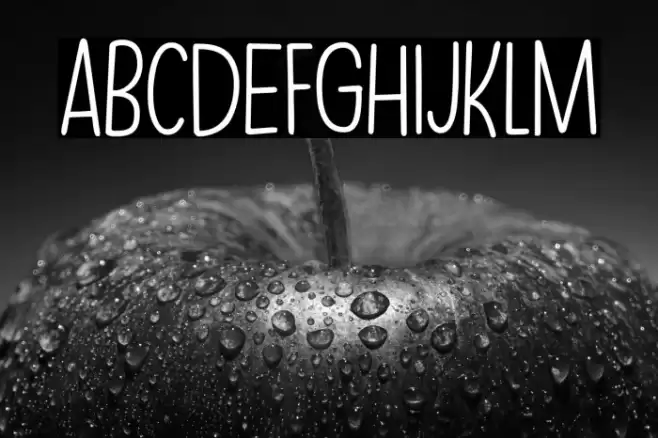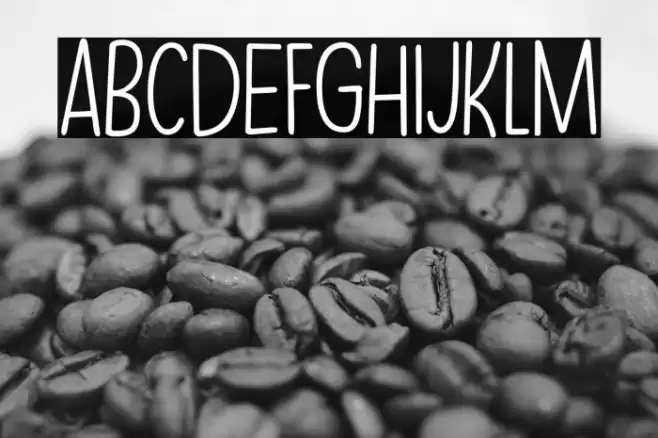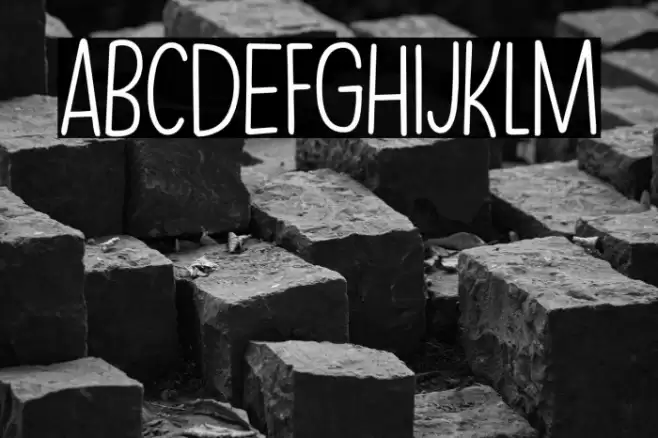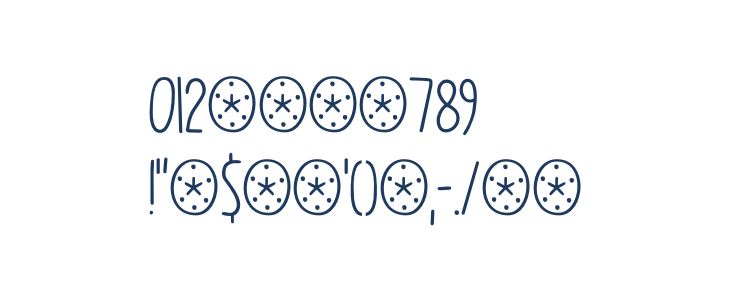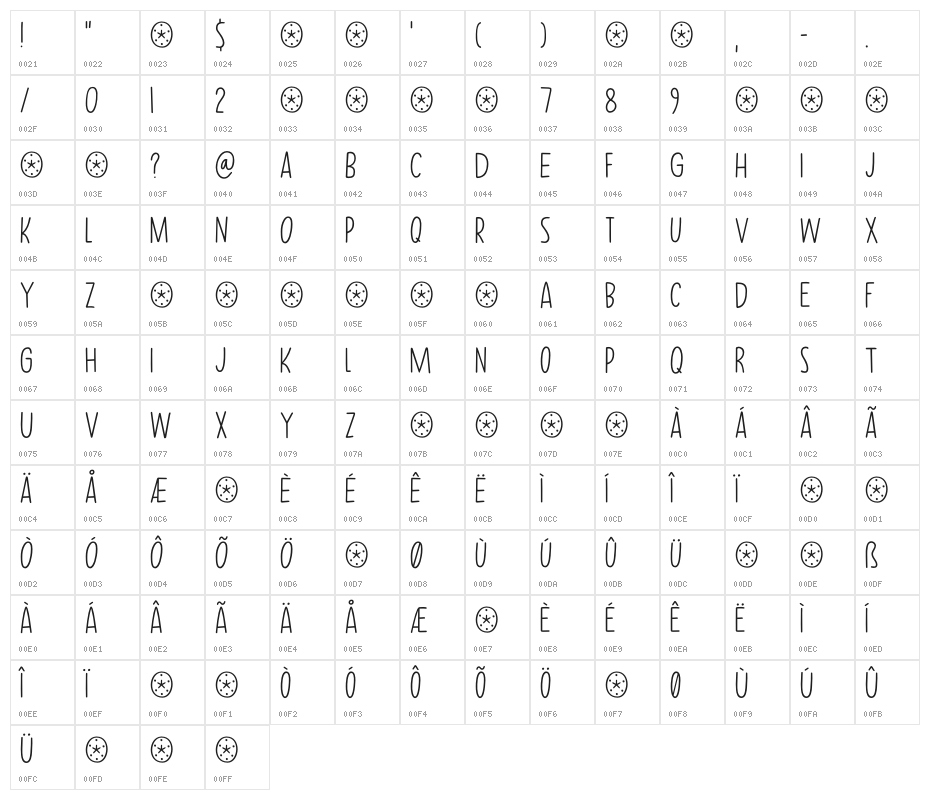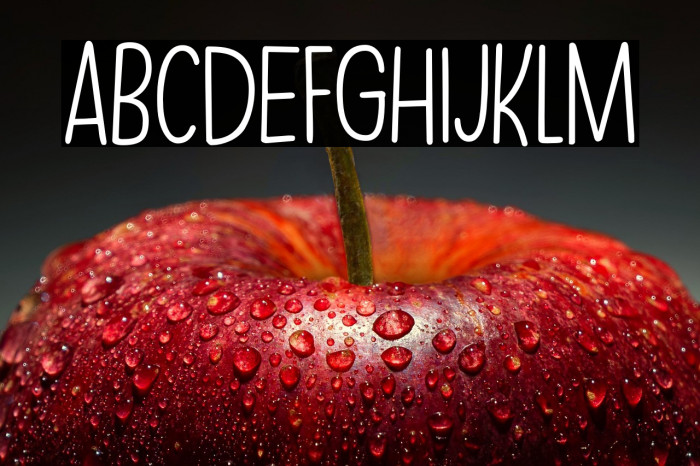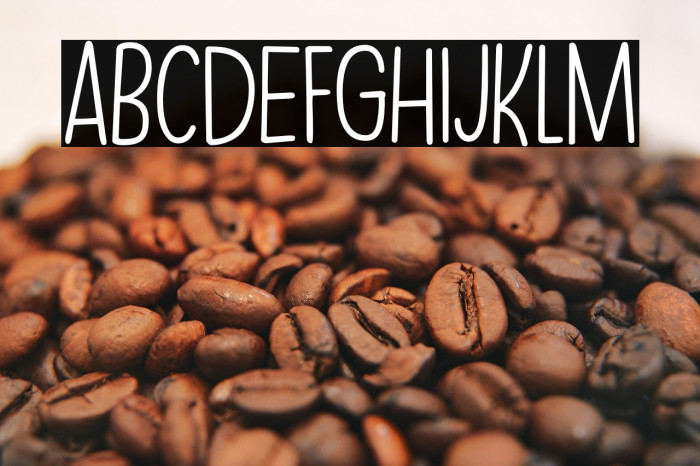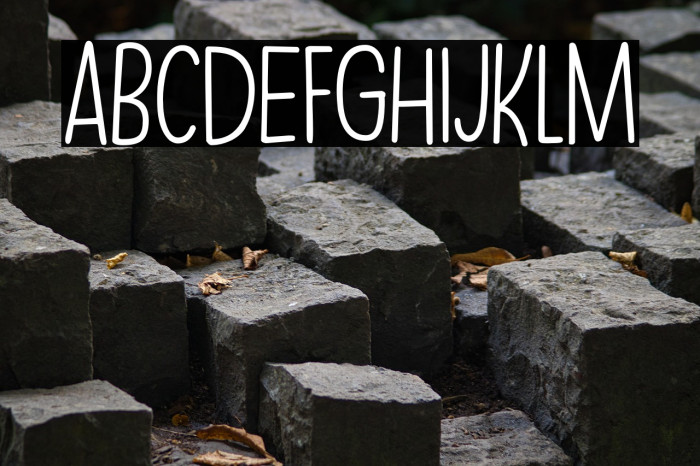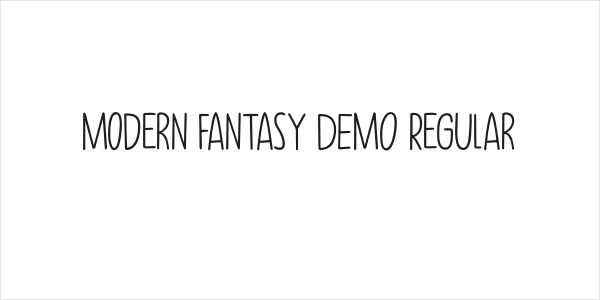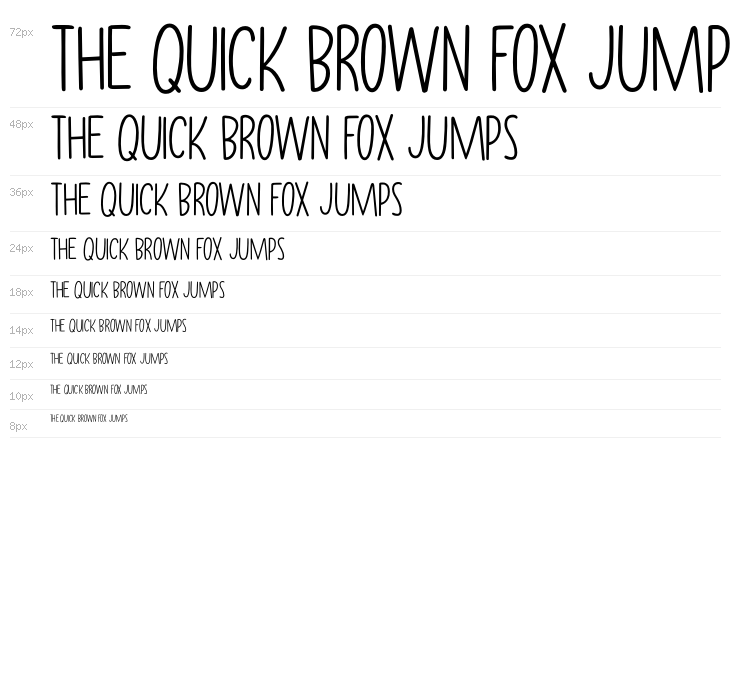
Modern Fantasy DEMO Regular Font
Modern Fantasy DEMO Regular Description
This font features a playful and whimsical design, characterized by its tall, narrow letters with rounded edges. The strokes are consistent in thickness, giving it a uniform appearance. The uppercase and lowercase letters maintain a cohesive style, with a slightly hand-drawn aesthetic that adds a touch of charm. The numbers and special characters are designed to match the overall playful theme, making it suitable for creative and informal projects. The font's simplicity and clarity ensure readability while maintaining a unique and engaging look.
A playful, whimsical font with tall, narrow letters and a hand-drawn aesthetic from Uncategorized fonts.
- Font: Modern Fantasy DEMO Regular
- Proposed Projects: Ideal for children's books, greeting cards, playful branding, and creative posters.
- Overall Style: Playful